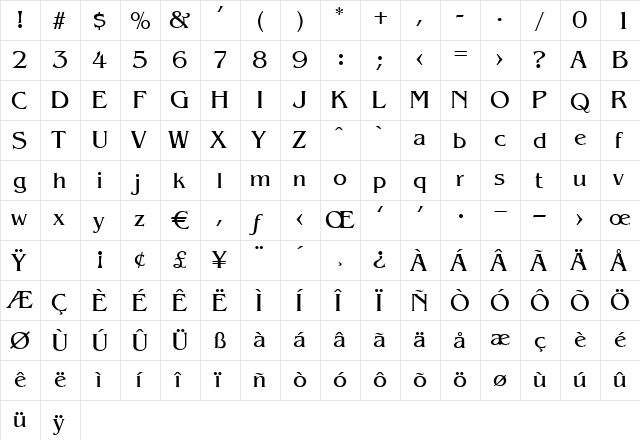
AidaBook Regular Font Preview
AidaBook Regular
AidaBook Regular Font Details
Design Context for AidaBook Typeface
AidaBook is a composed and adaptable typeface that performs quietly and consistently across a wide range of design contexts.